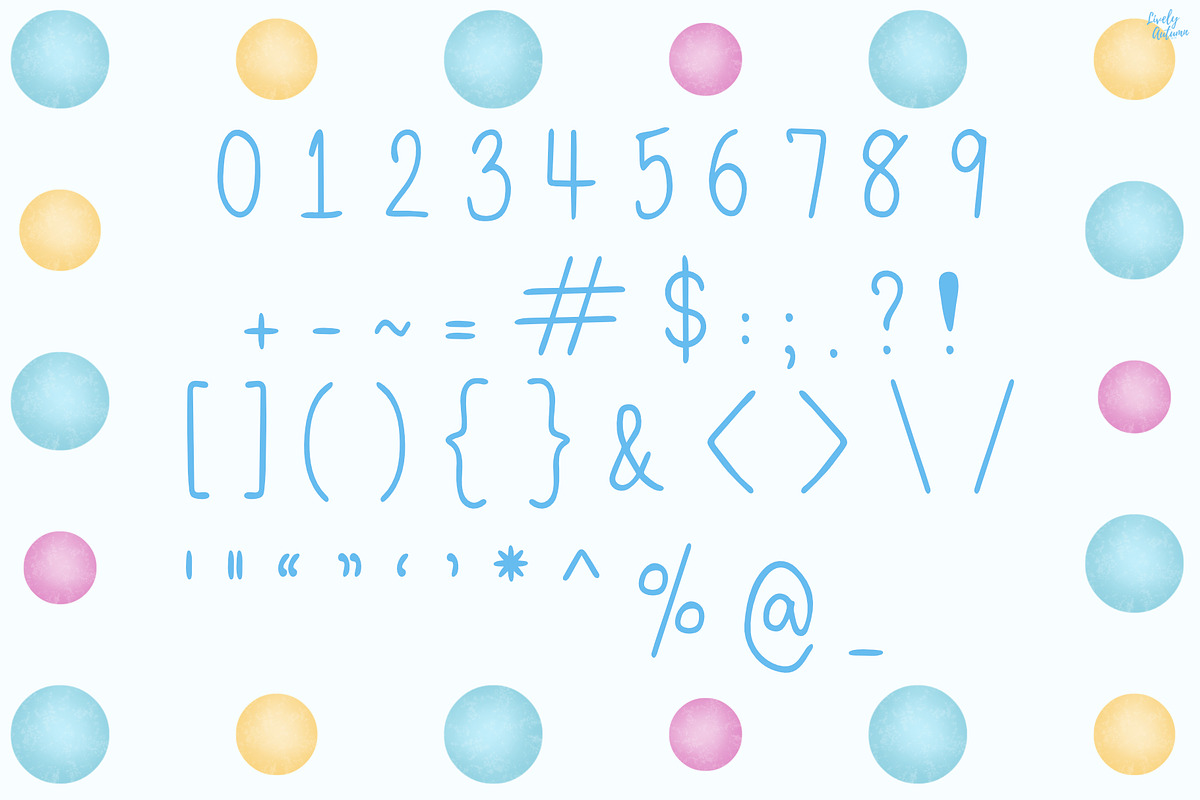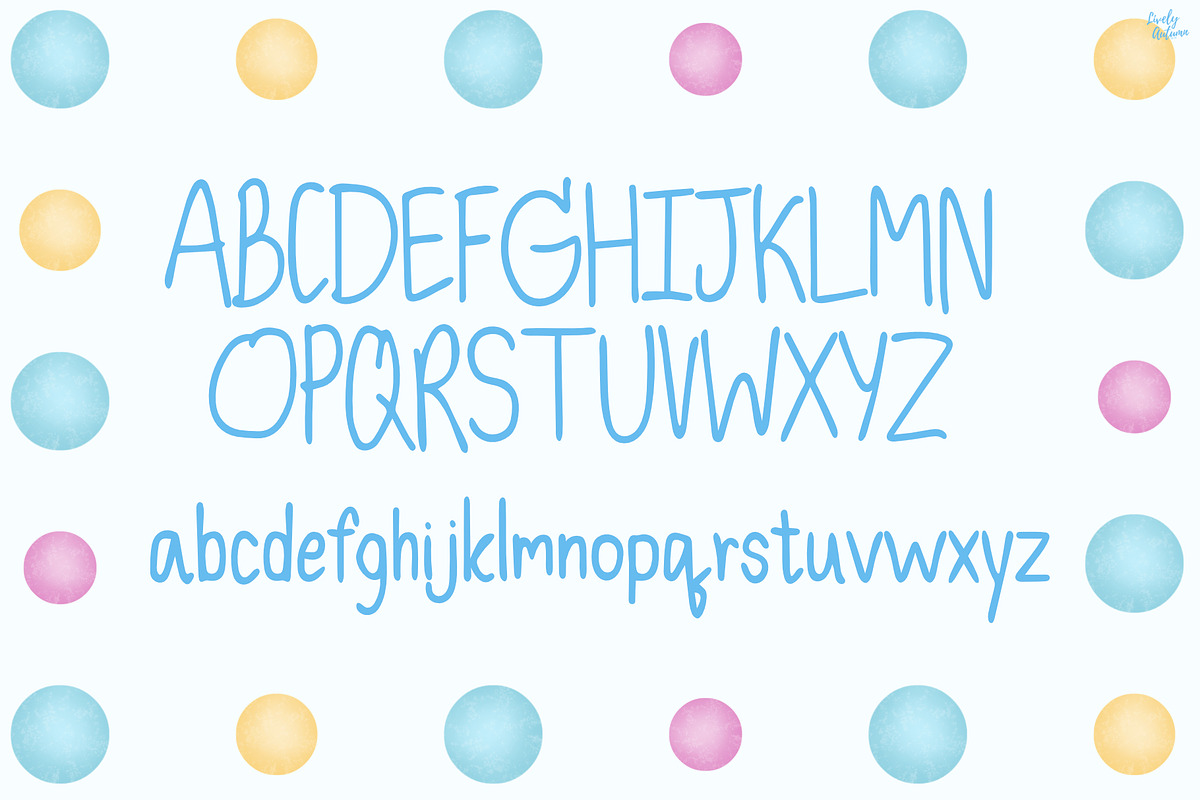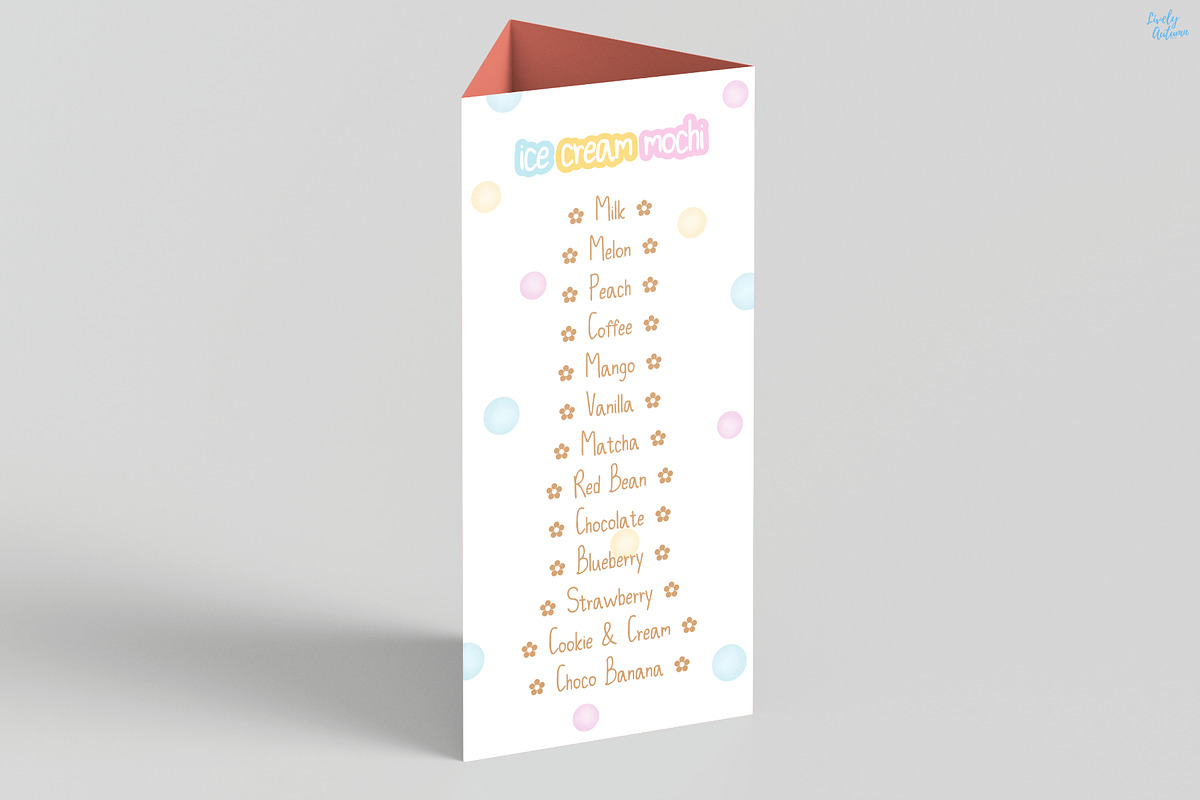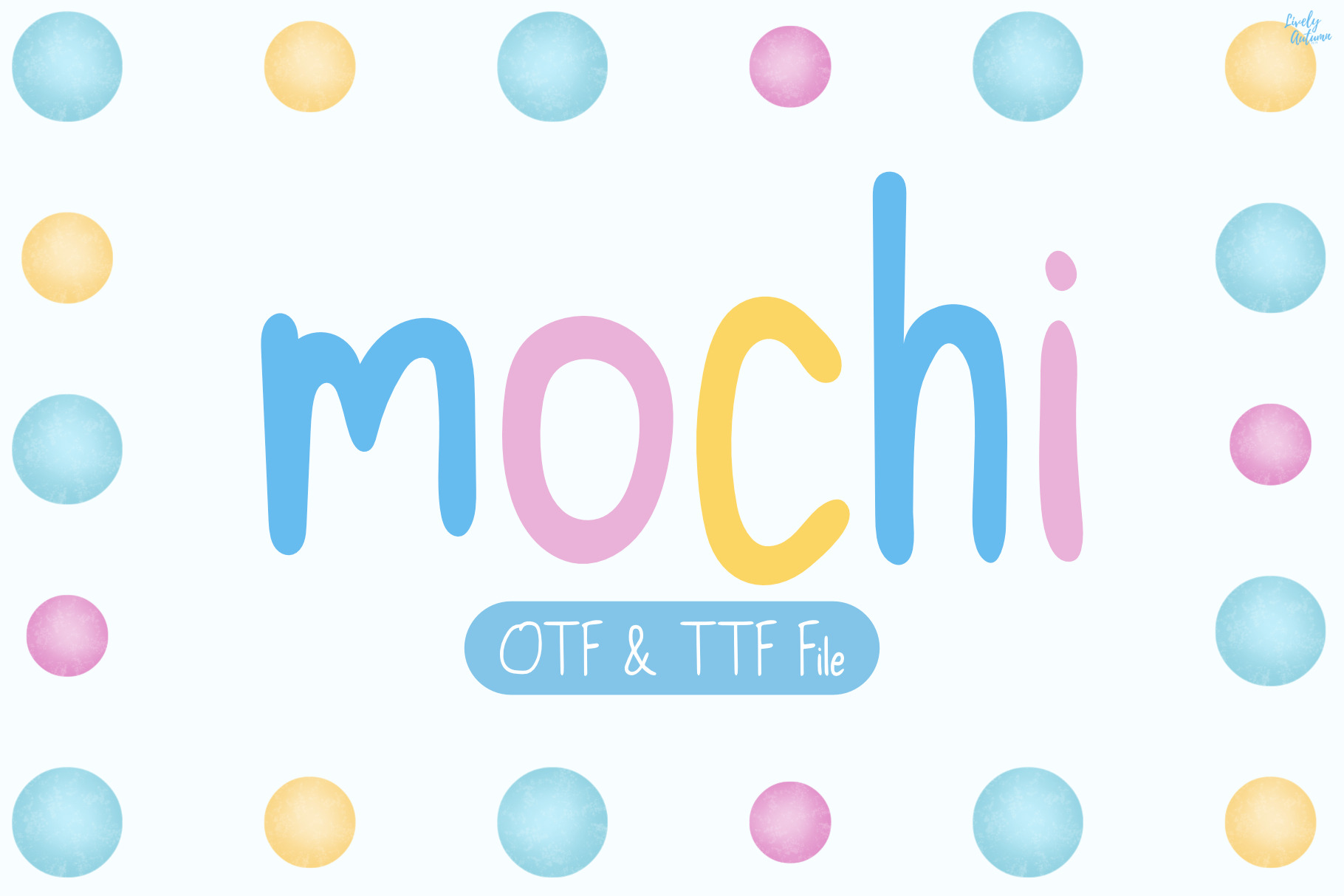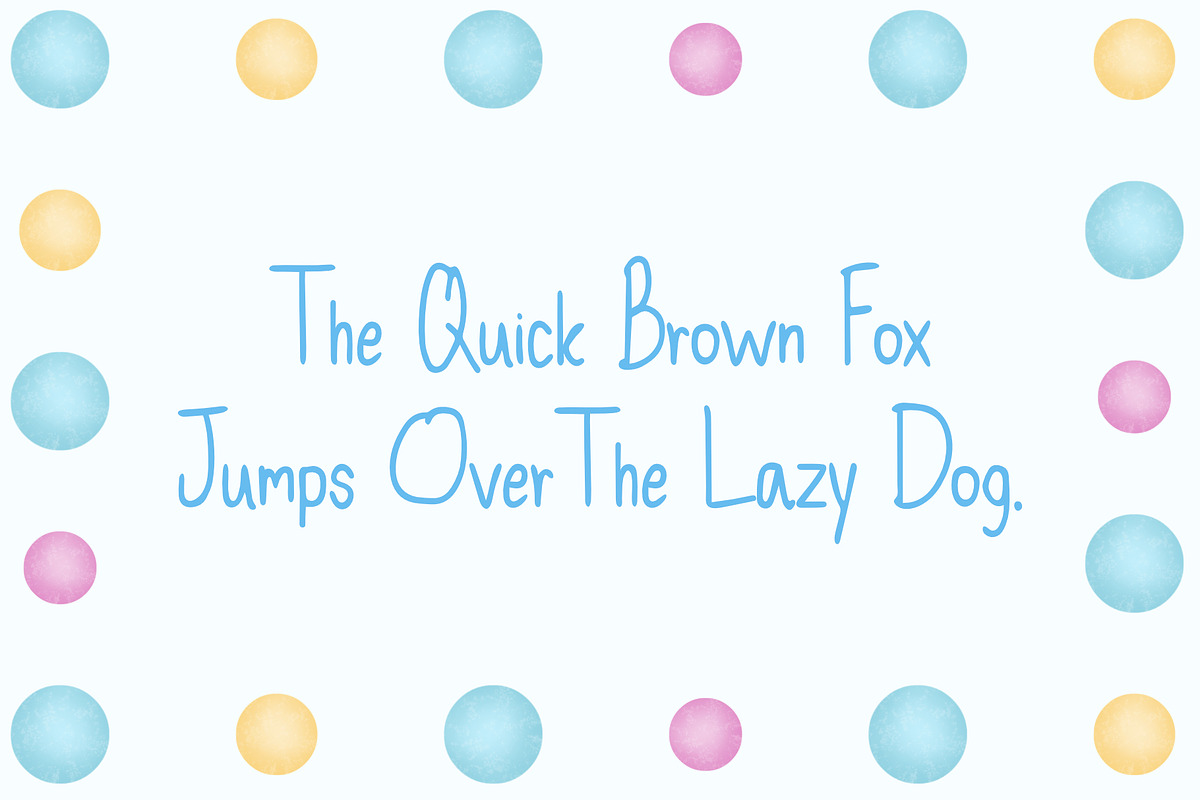
Mochi | Cute Handwriting Font
Mochi Font is a cute handwritten font. Perfect for your personal projects and various projects. From invitations to posters, social media graphics, journals, and much more.
- Font includes: uppercase, lowercase, numbers, and punctuation